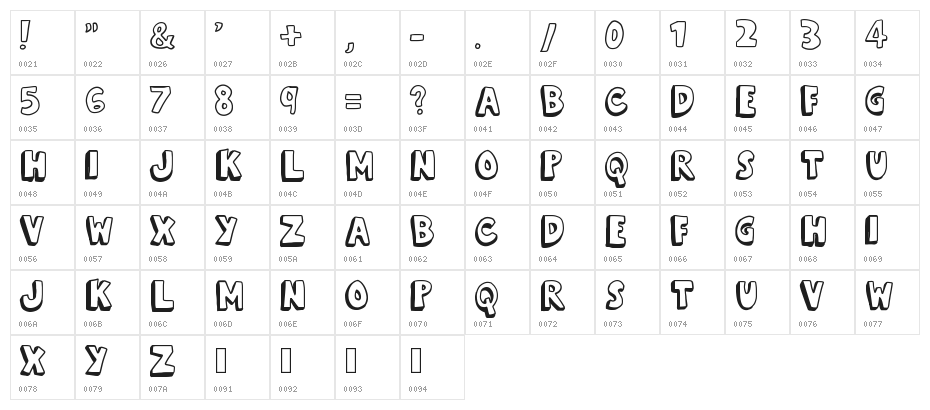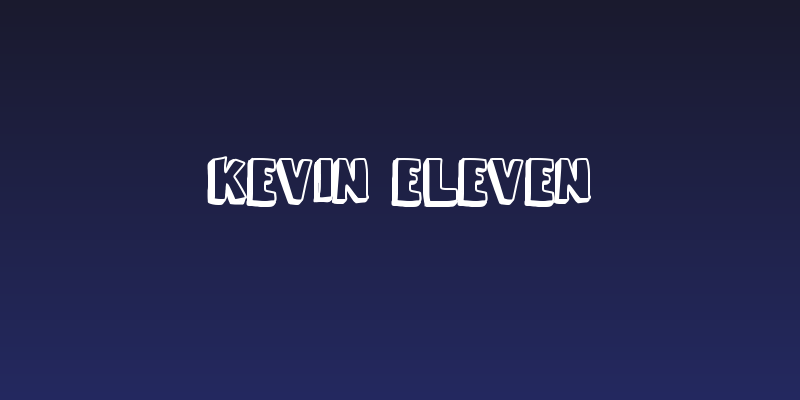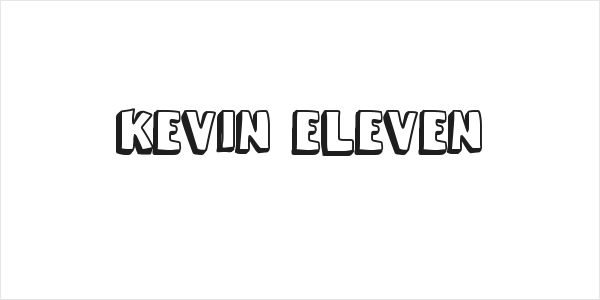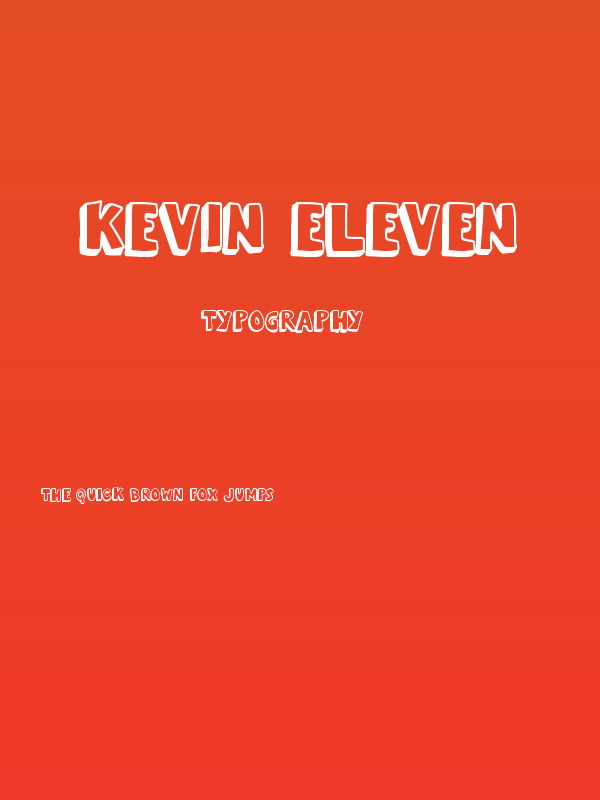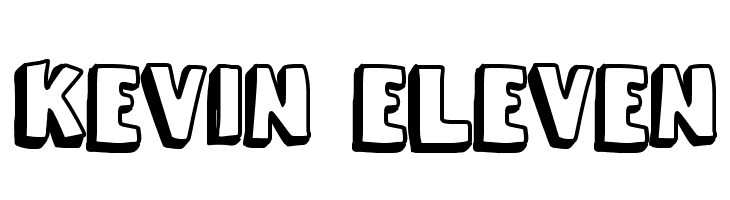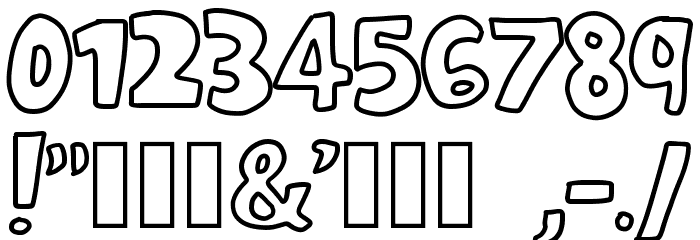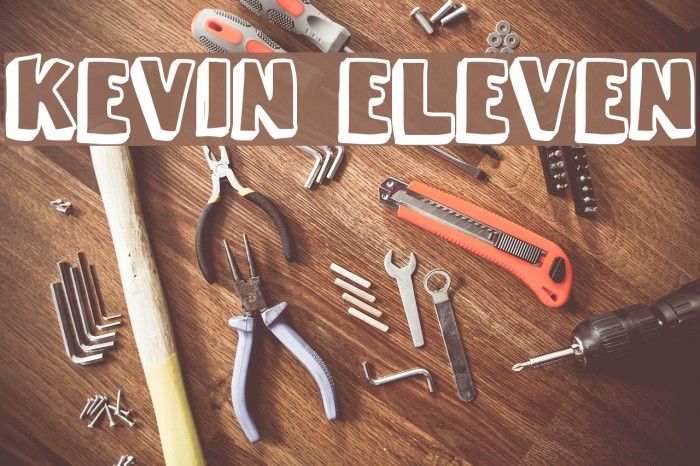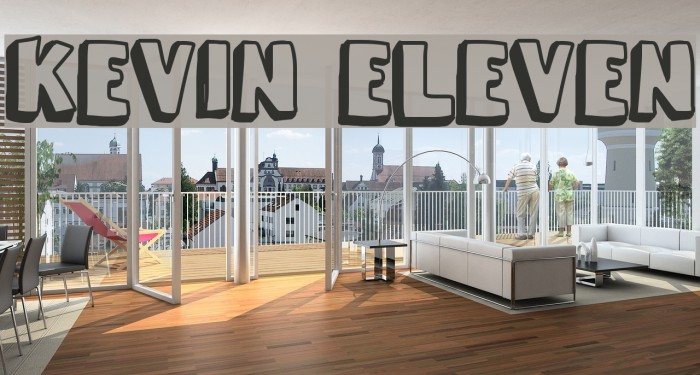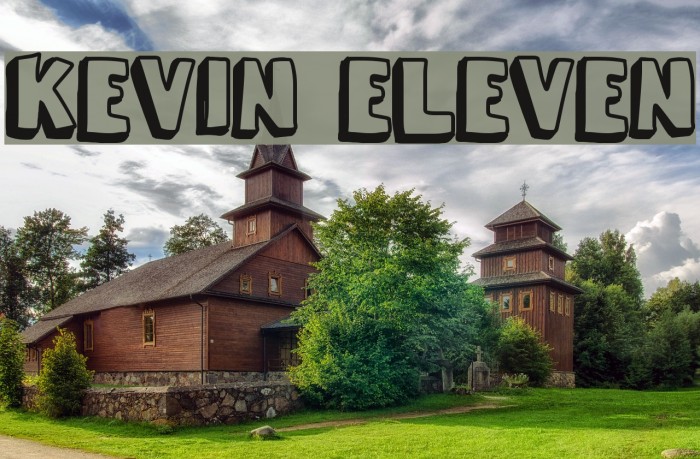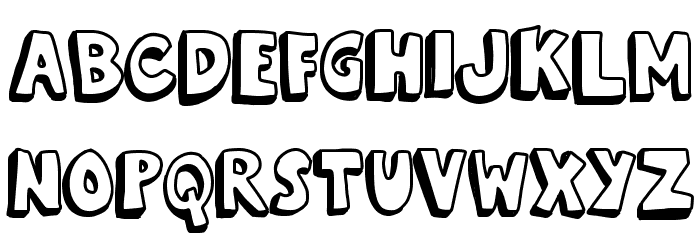
kevin eleven Font
kevin eleven Description
This playful and bold font features thick, rounded letters with a cartoonish style. Each character is outlined, giving it a three-dimensional effect that enhances its visual appeal. The font maintains a consistent weight throughout, with slightly exaggerated curves and angles that add to its whimsical nature. The numbers and special characters follow the same design principles, ensuring a cohesive look across all elements. This font is ideal for projects that require a fun and engaging aesthetic, such as children's books, comic strips, or playful branding materials.
| Overall Style | Playful |
| Proposed Projects | Ideal for children's books, comic strips, playful branding, and fun event invitations. |